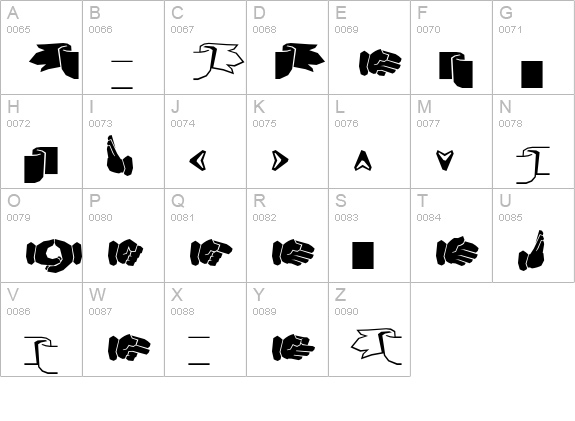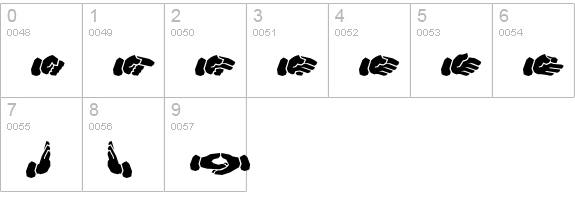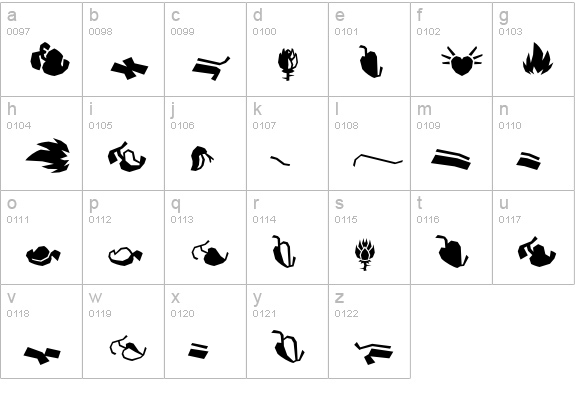
Fakir Ornaments Font Details
Fakir Ornaments font is a stunning display typeface that exudes elegance and sophistication. With intricate designs and ornate details, this font is perfect for adding a touch of luxury to your projects. Whether you're working on invitations, branding, or any other creative endeavor, Fakir Ornaments font will surely elevate your work to the next level. The best part? Fakir Ornaments font is available for free download at FontsMarket.com. Yes, you read that right - you can access this beautiful font at no cost, making it a must-have addition to your font collection. Don't miss out on the opportunity to enhance your designs with the exquisite beauty of Fakir Ornaments font. Download it today and let your creativity shine!